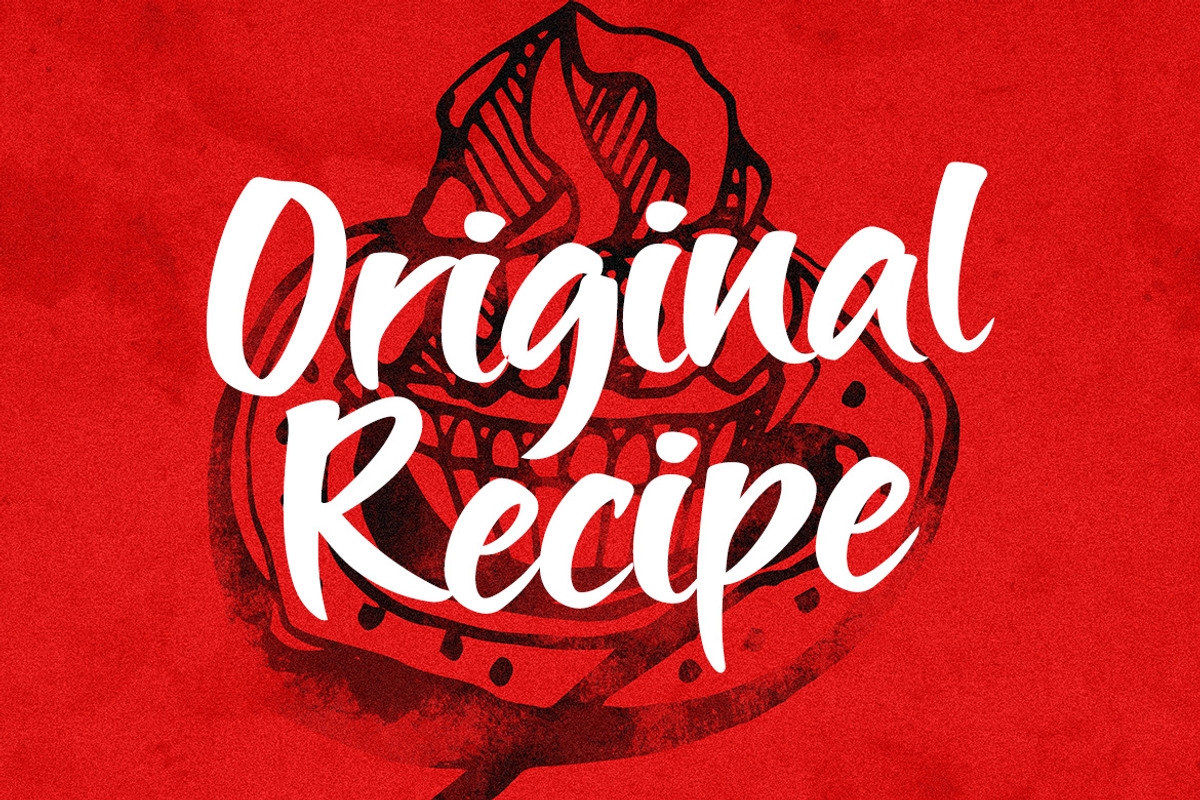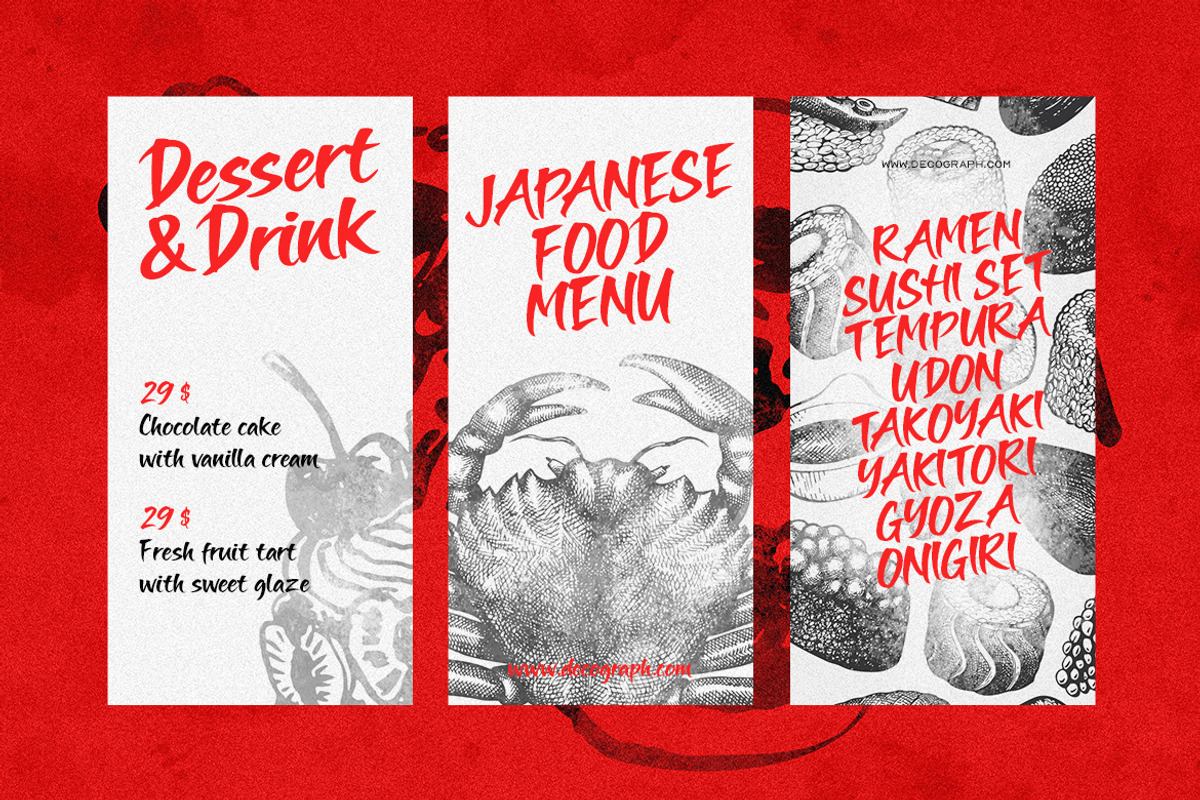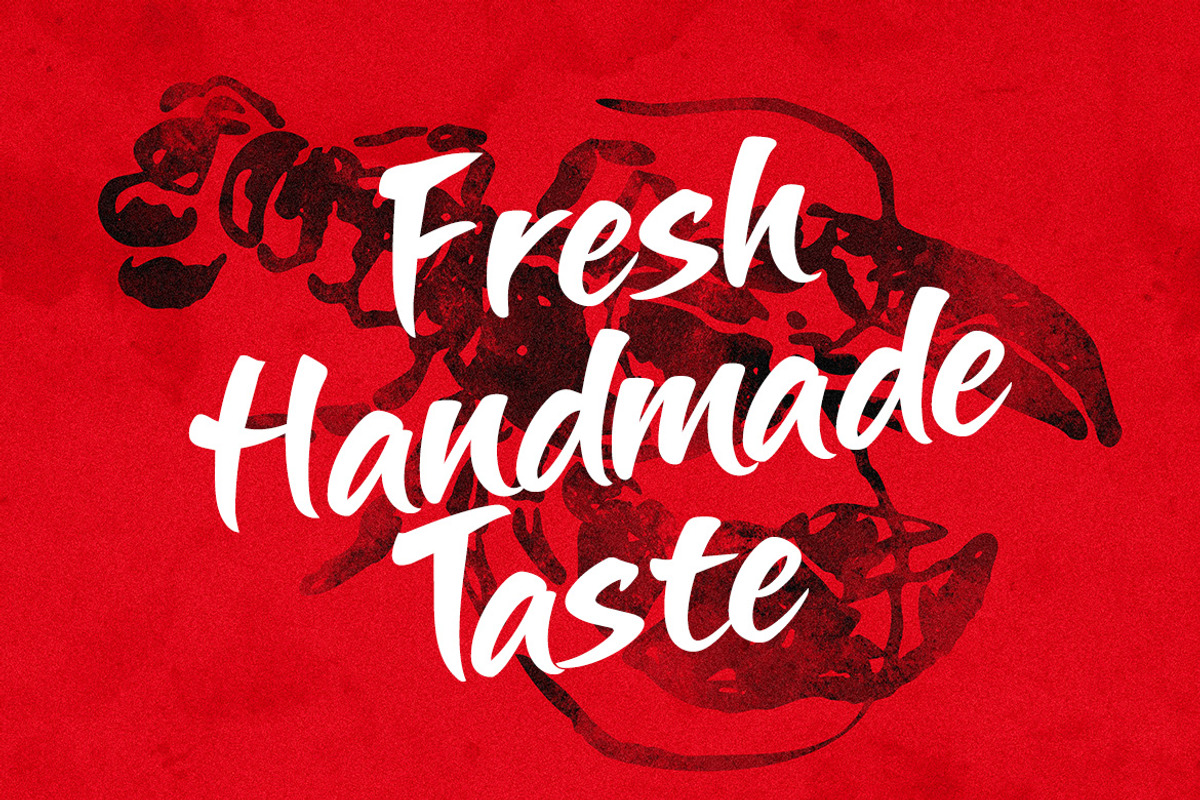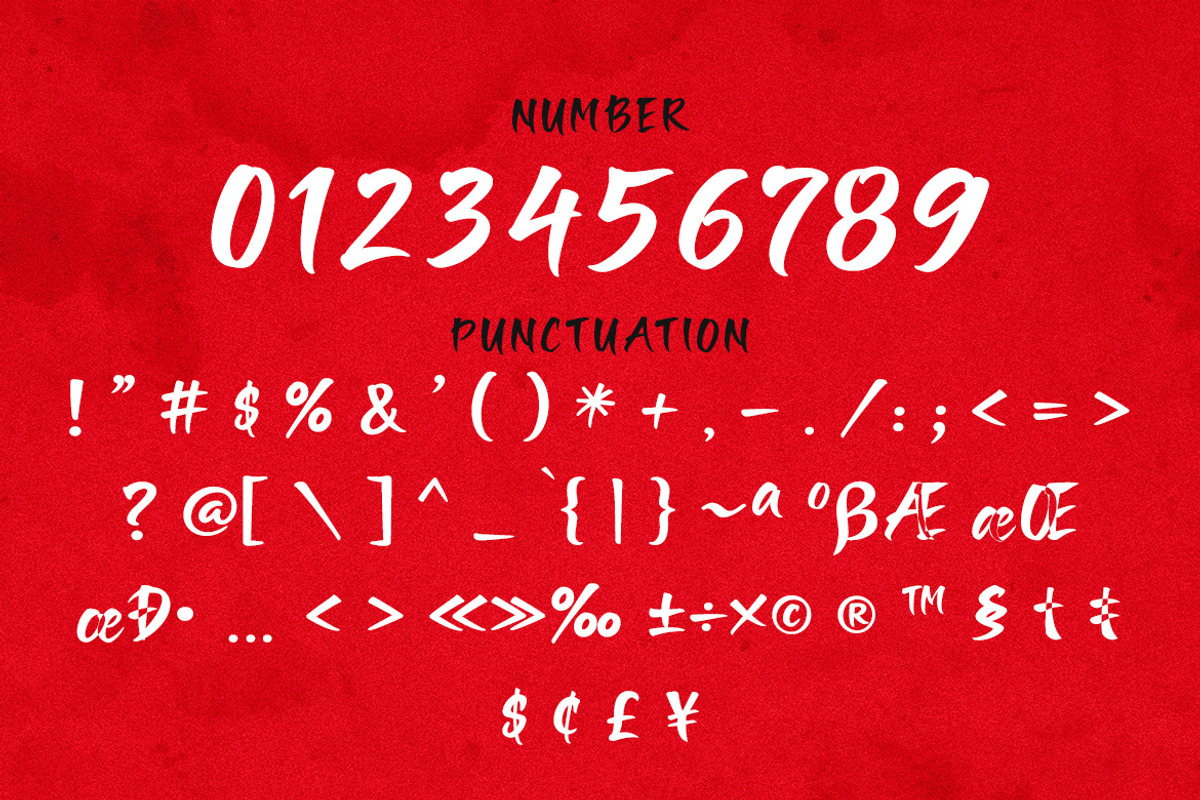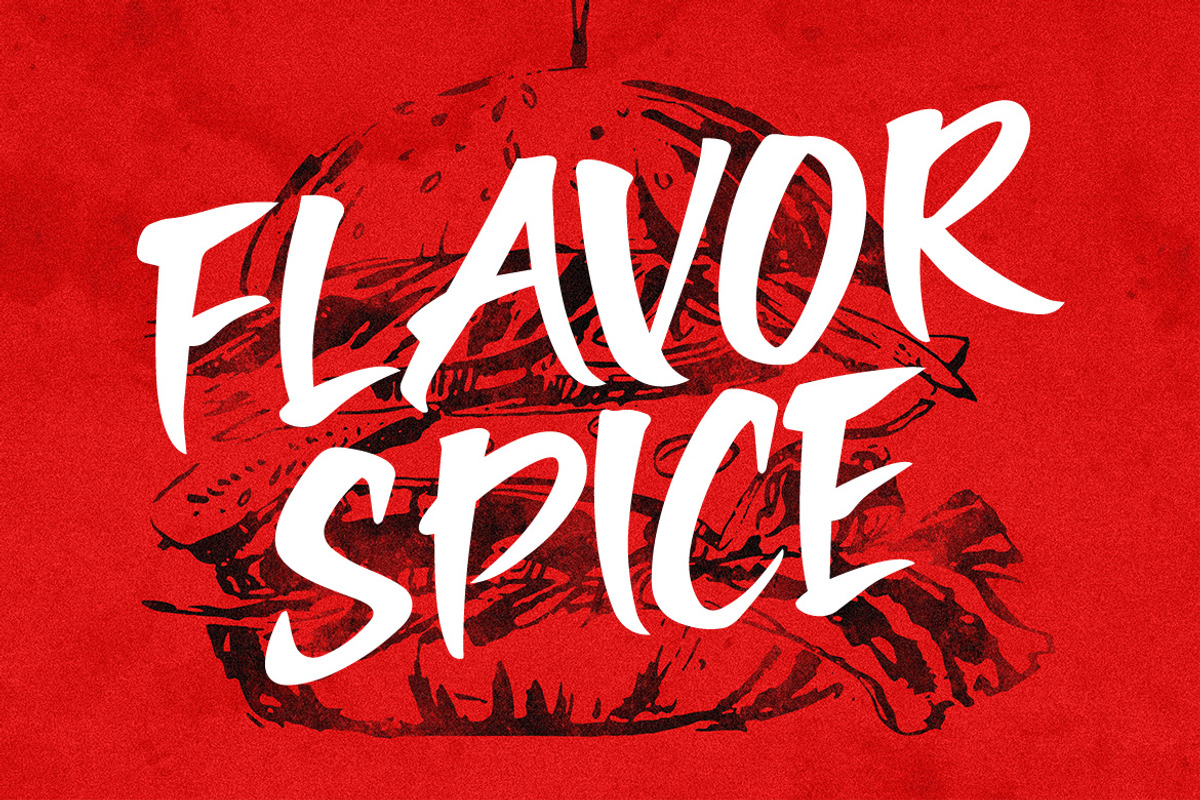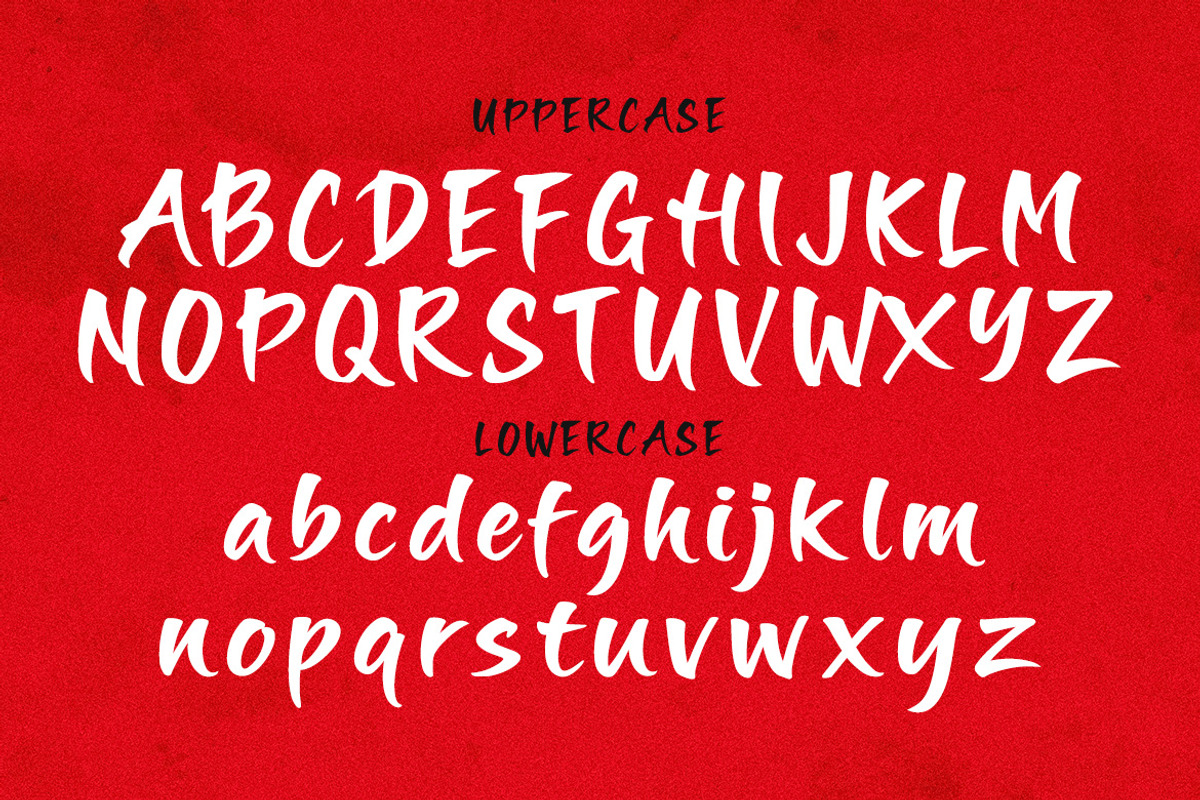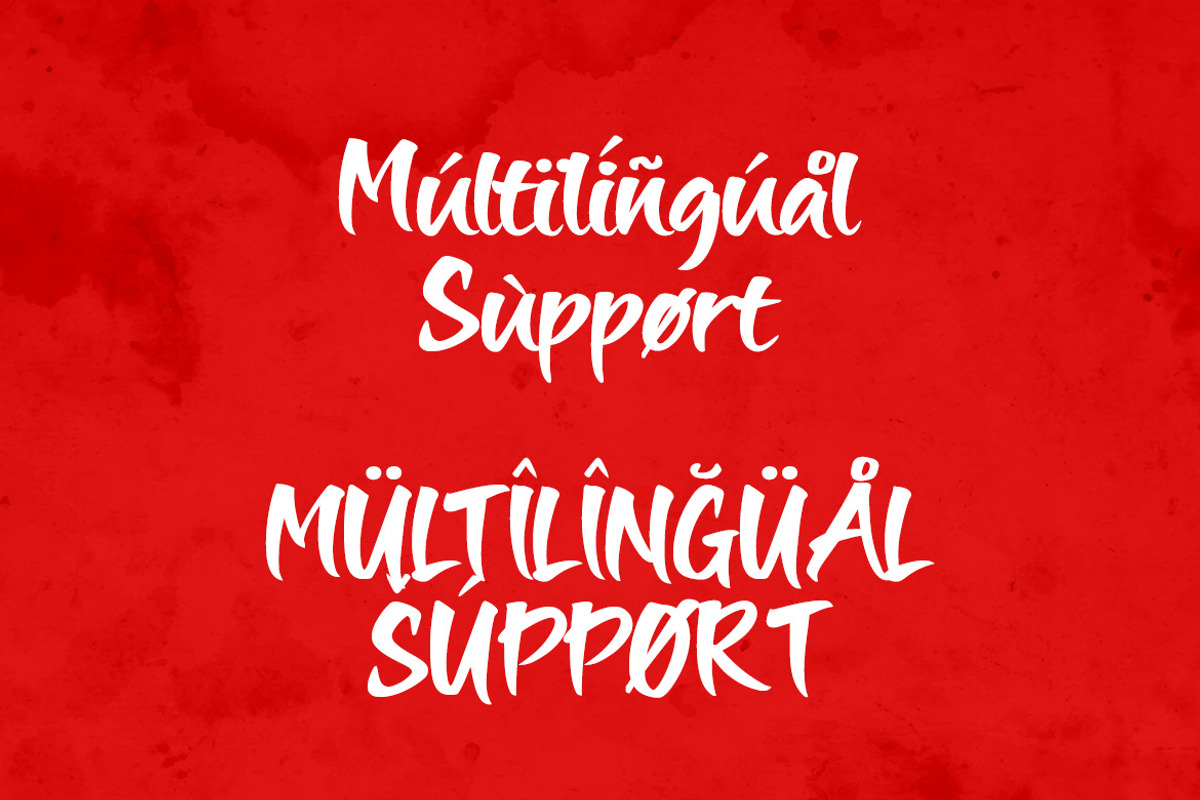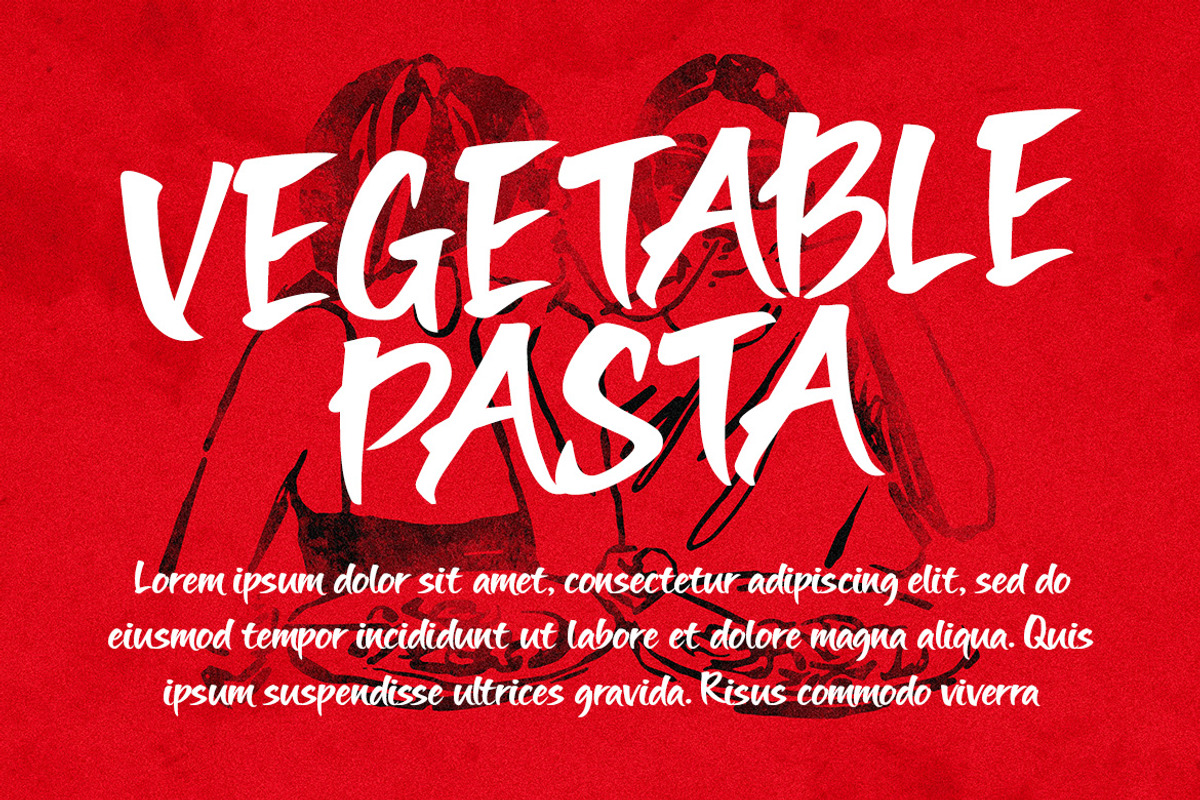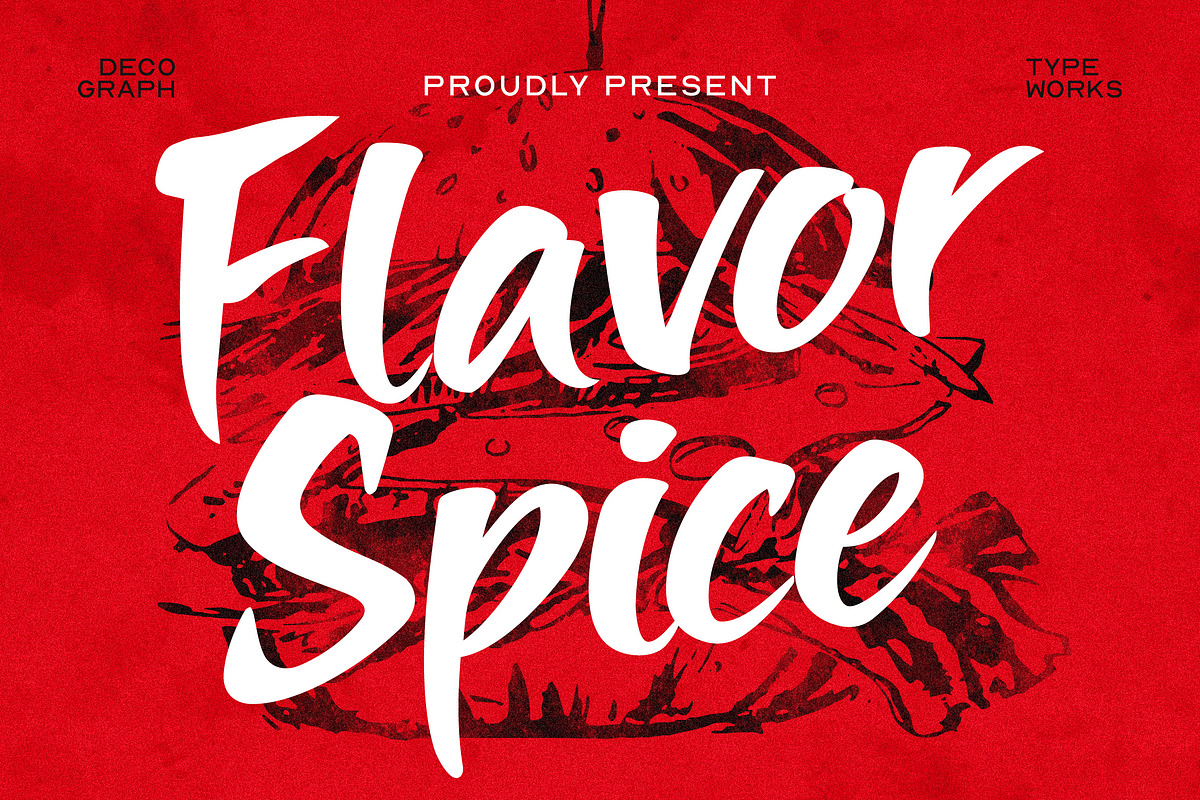
Flavor Spice – Brush Script
Flavor Spice is a bold and juicy handwritten brush script font that bursts with flavor and personality, crafted to bring a delicious, mouthwatering vibe to your designs. With its smooth strokes, dynamic flow, and expressive lettering, this font perfectly captures the essence of food branding—from street food stalls and restaurant menus to packaging, food posters, café logos, and culinary social media content. Flavor Spice blends casual handwritten charm with a strong visual punch, making it ideal for showcasing anything tasty, fresh, spicy, or indulgent while keeping your typography warm, inviting, and irresistibly appetizing.
:FEATURES:
- Smooth Kerning